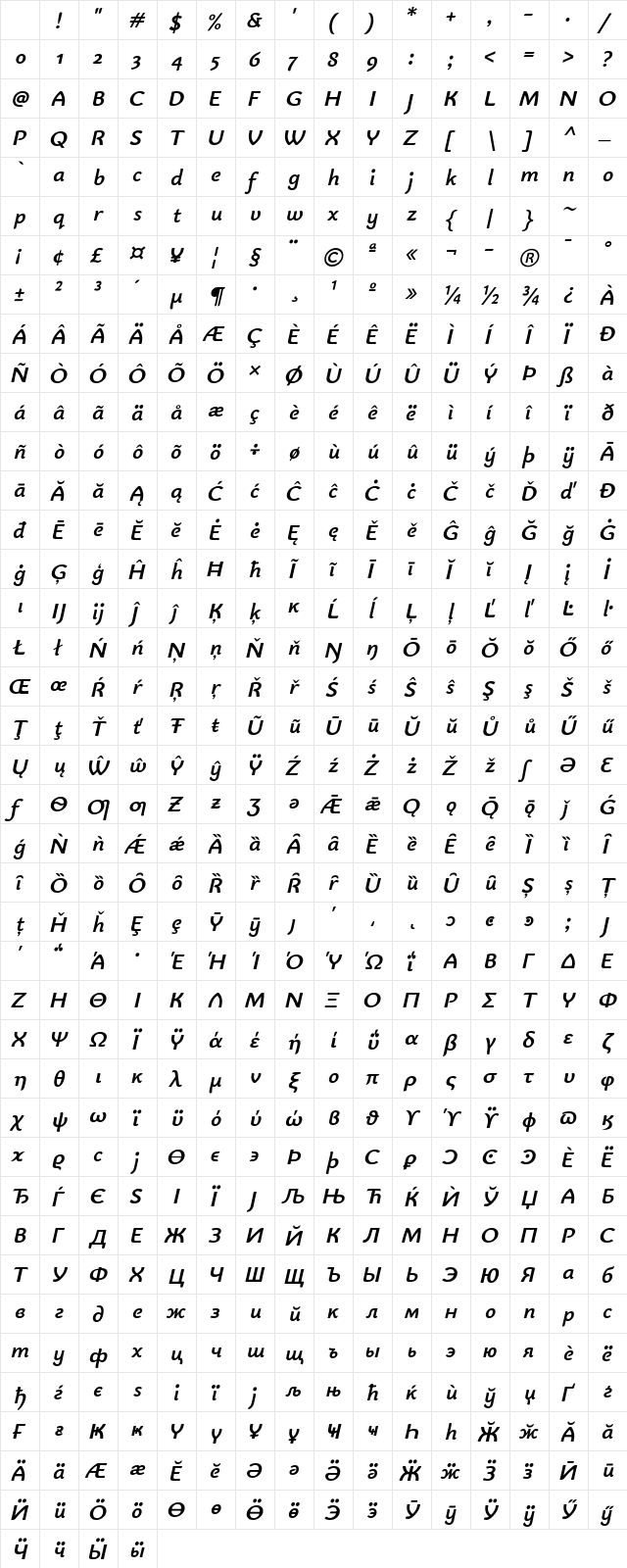
Complete Bainsley Bold Italic glyph index. Displaying only characters natively supported by Bainsley Bold Italic font.
Bainsley is a composed and adaptable typeface that performs quietly and consistently across a wide range of design contexts. The slanted form adds forward momentum and visual energy. Its bold stroke weight gives it real presence on the page.
Pro Tip: Use Bainsley for emphasis, pull quotes, and subheadings where its slanted energy can add rhythm to the layout.